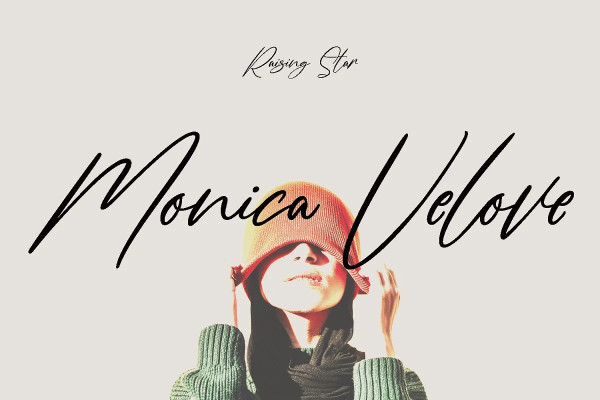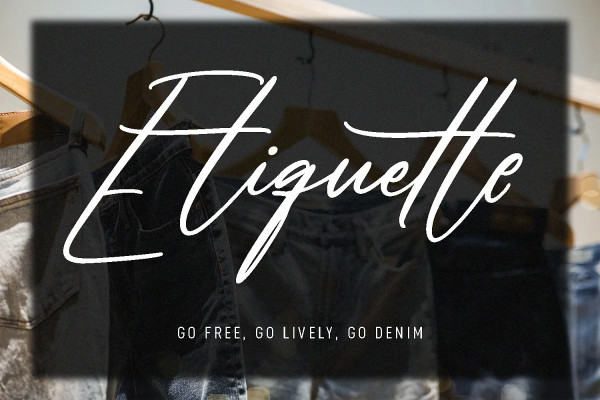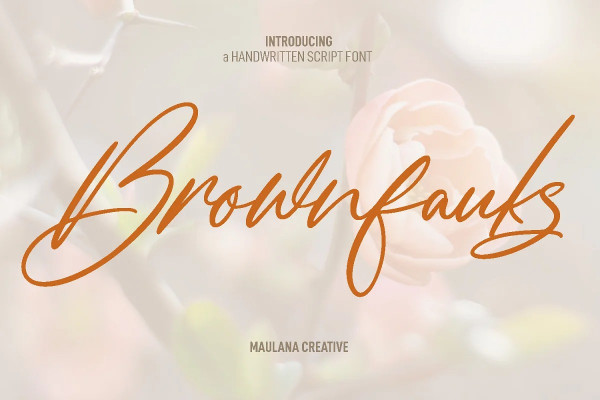
Brownfauks Font
Brownfauks Font is a fancy handwritten script font. With signature style light contrast stroke, fun character with a bit of ligatures and alternates. To give you an extra creative work. Brownfauks font support multilingual more than 100+ language. This font is good for logo design, Social media, Movie Titles, Books Titles, a short text even a long text letter and good for your secondary text font with sans or serif. Make a stunning work with Brownfauks font.